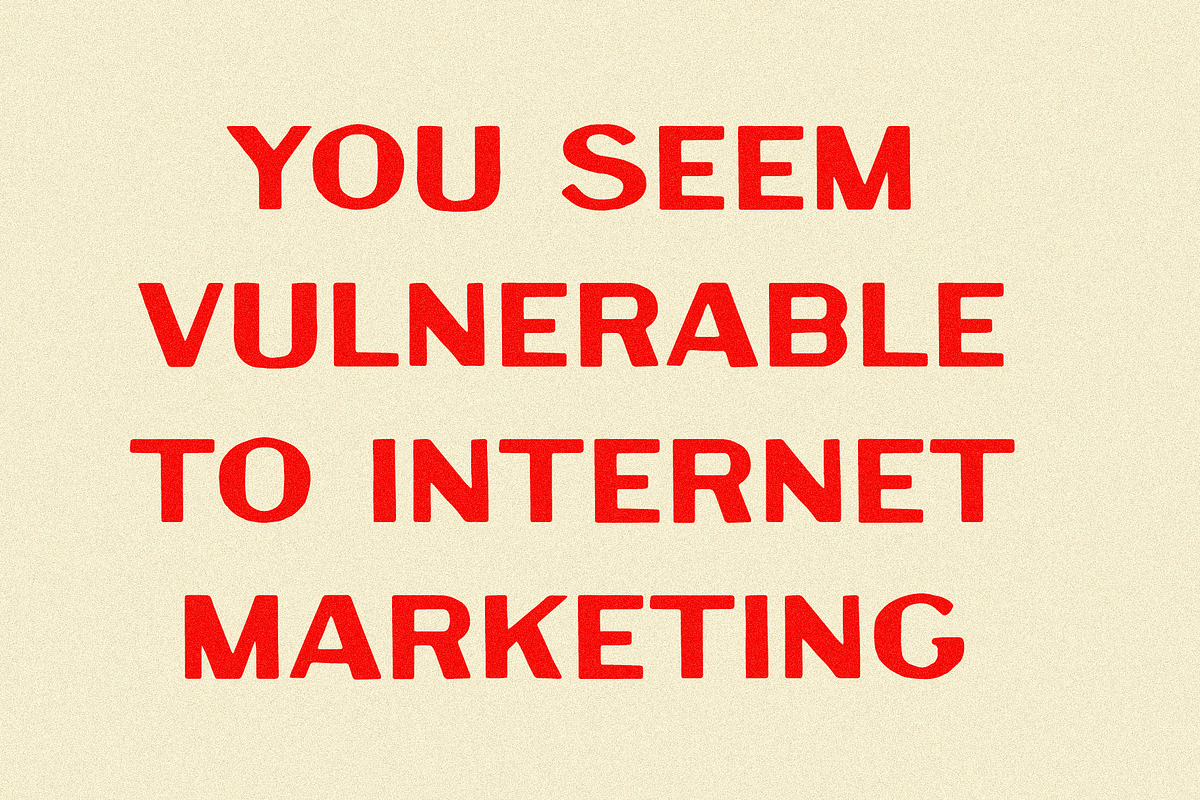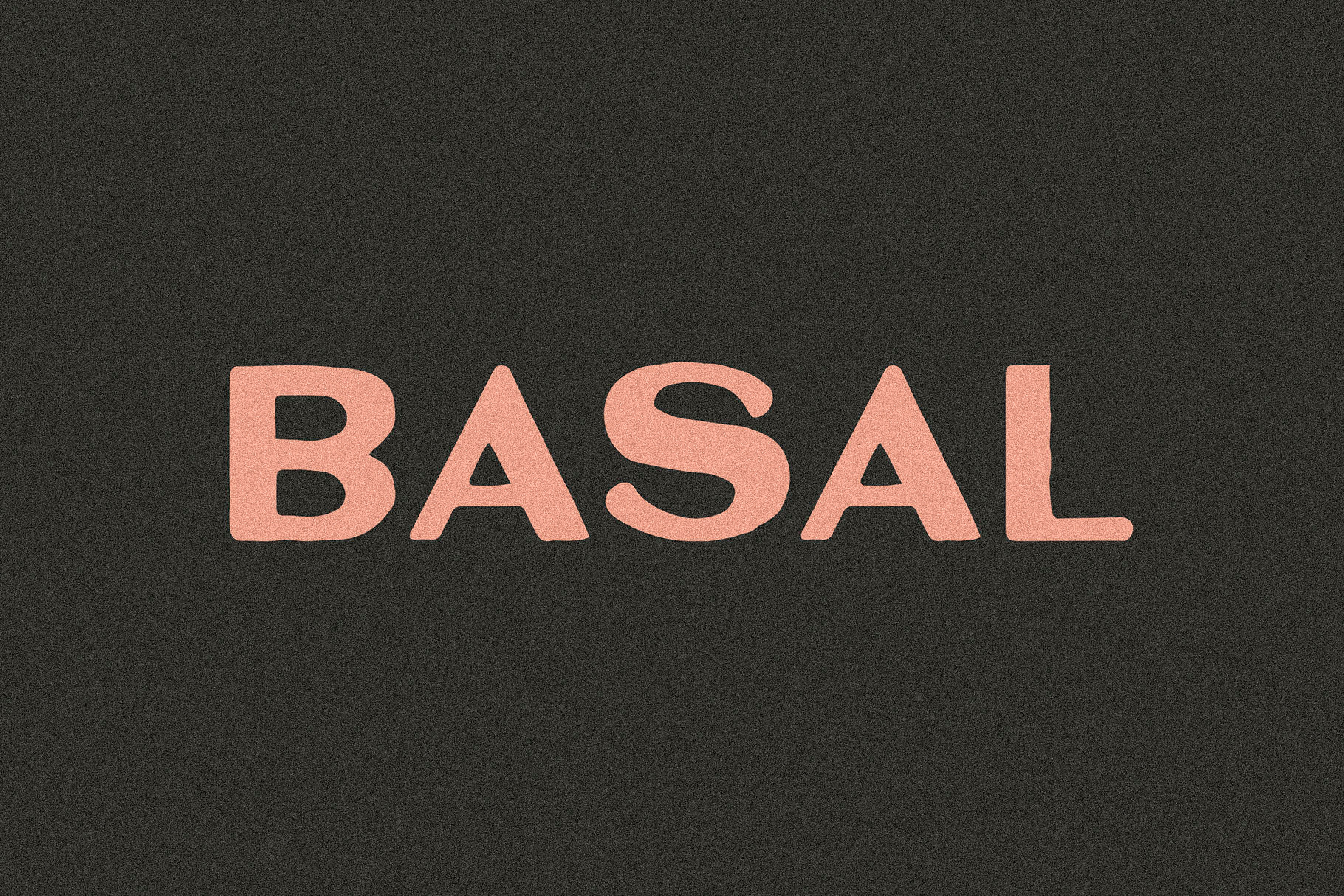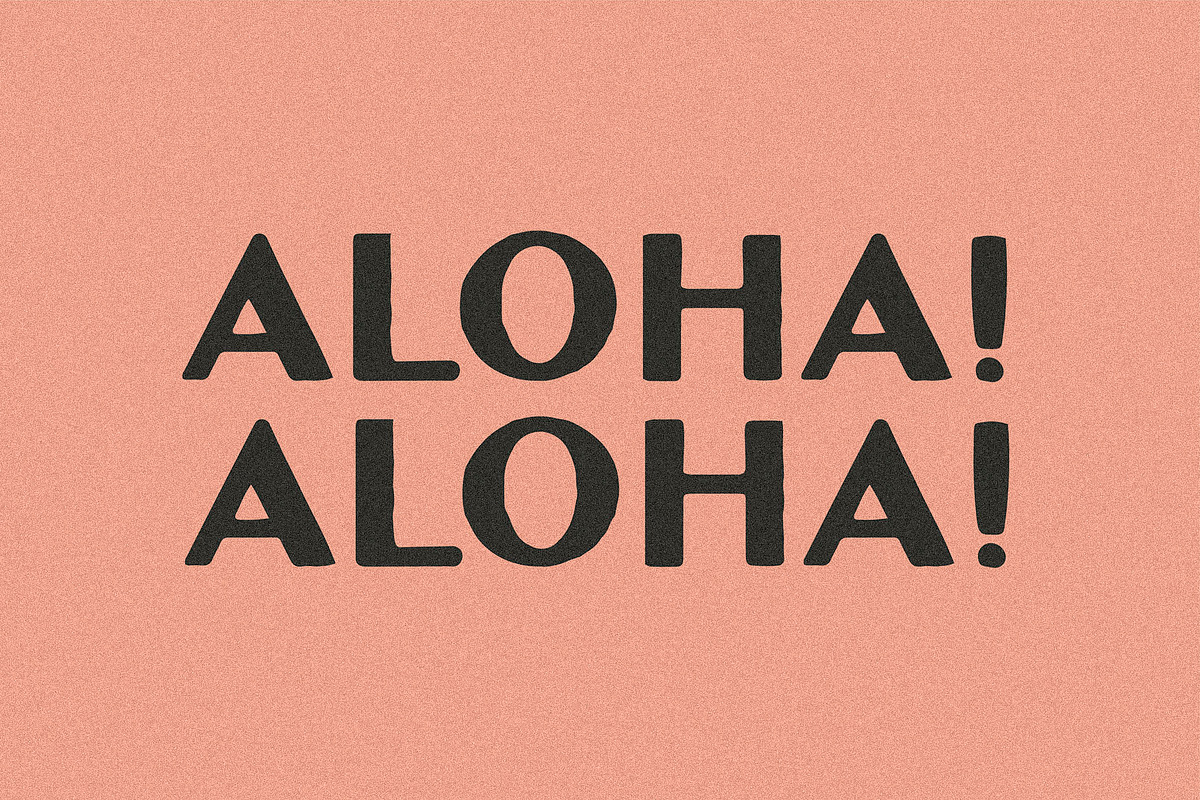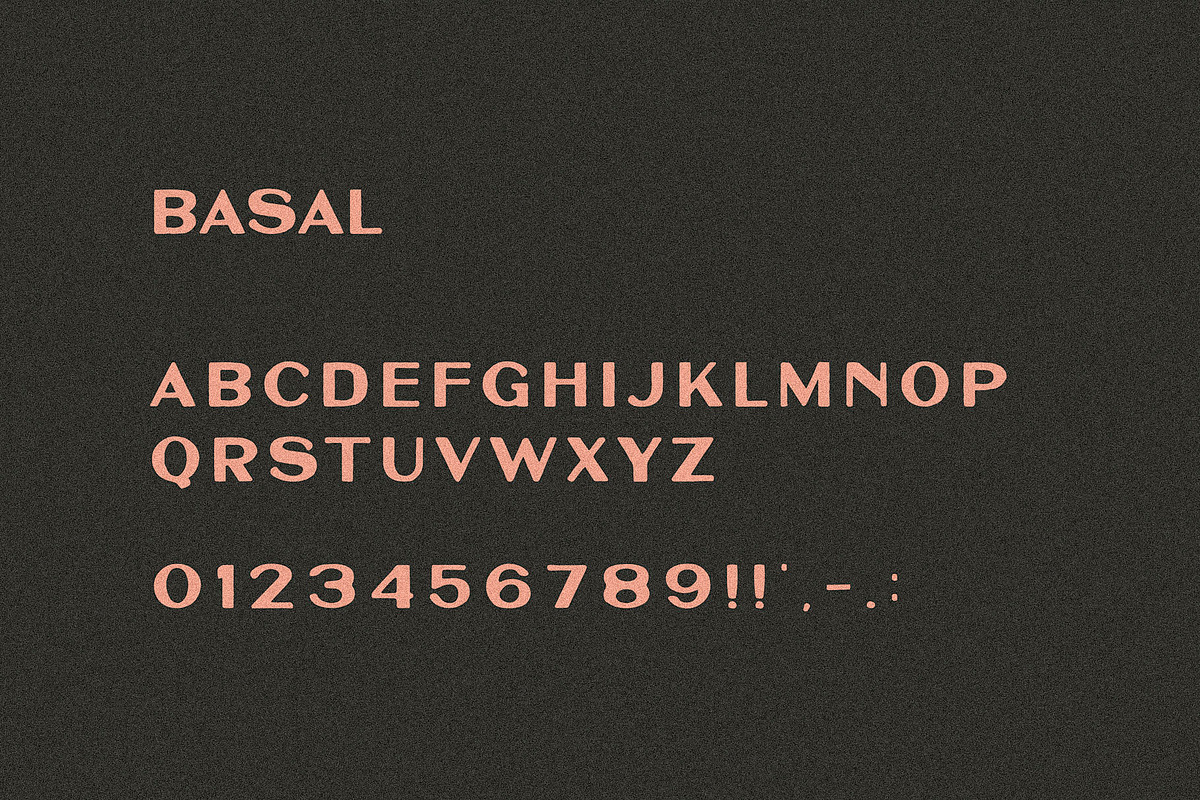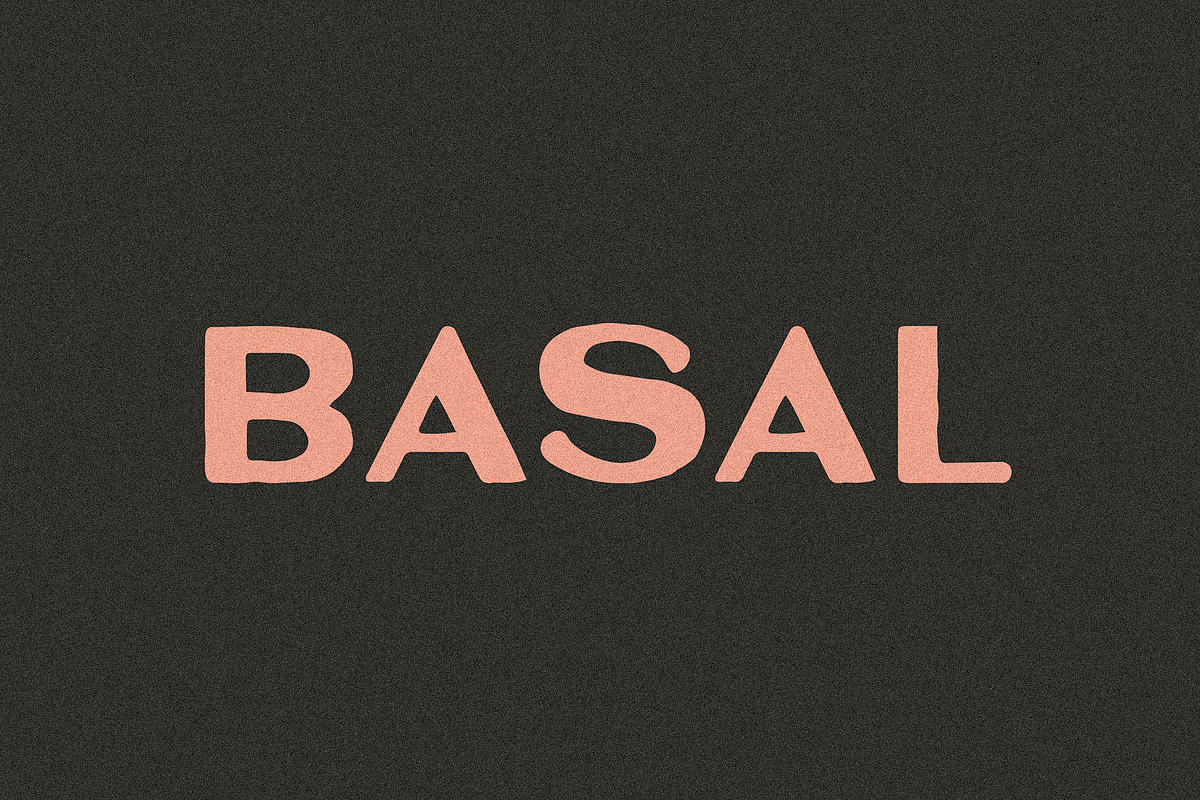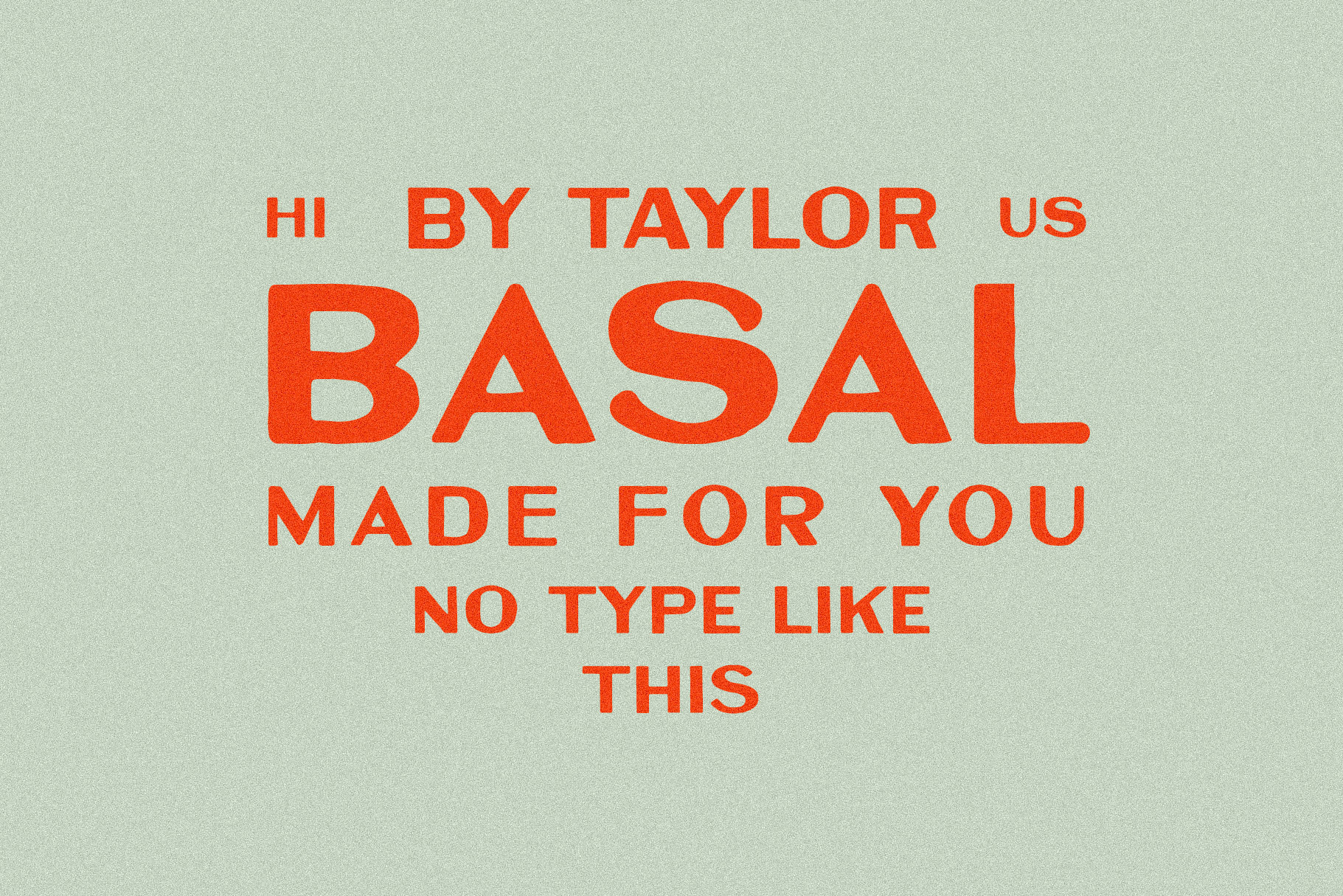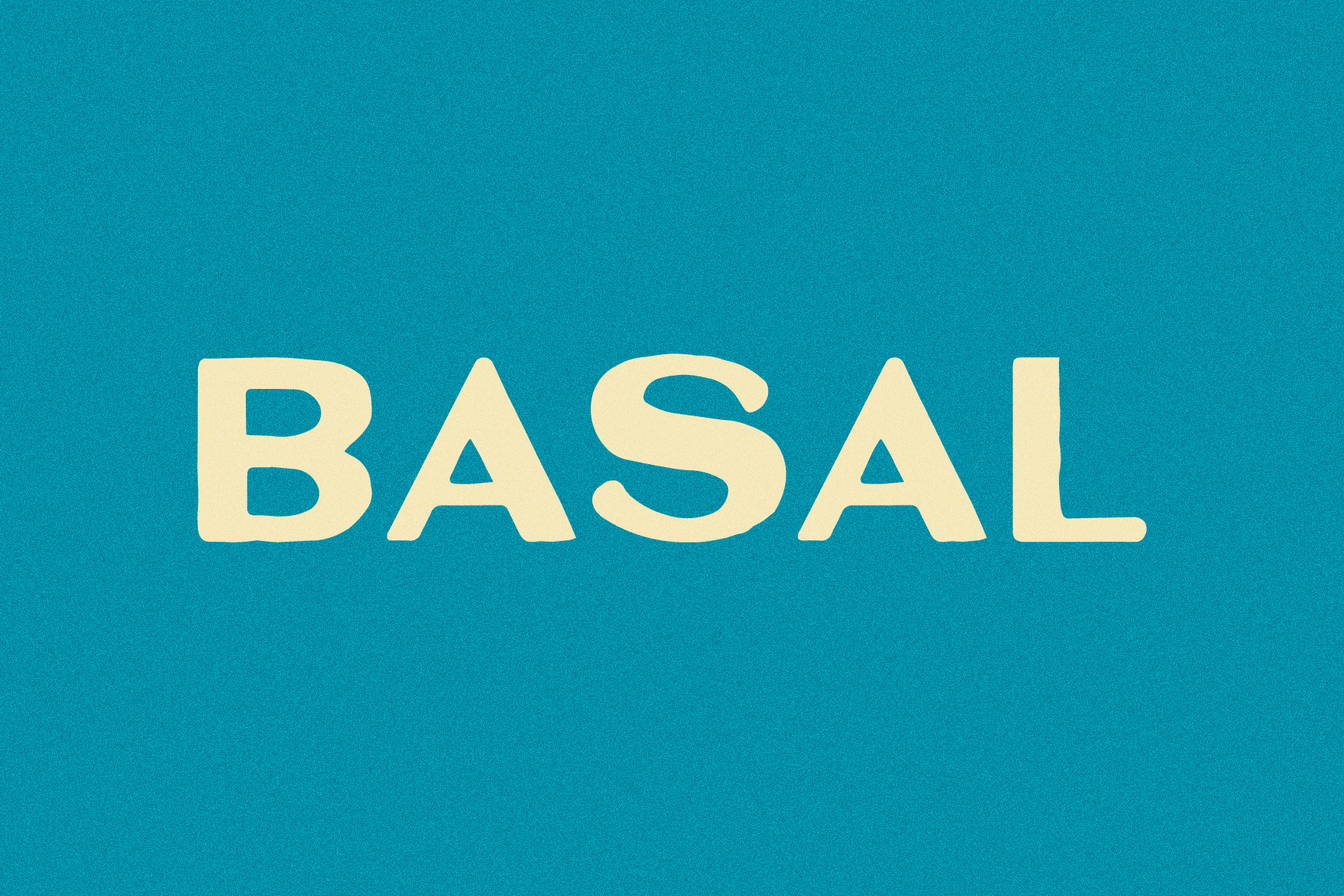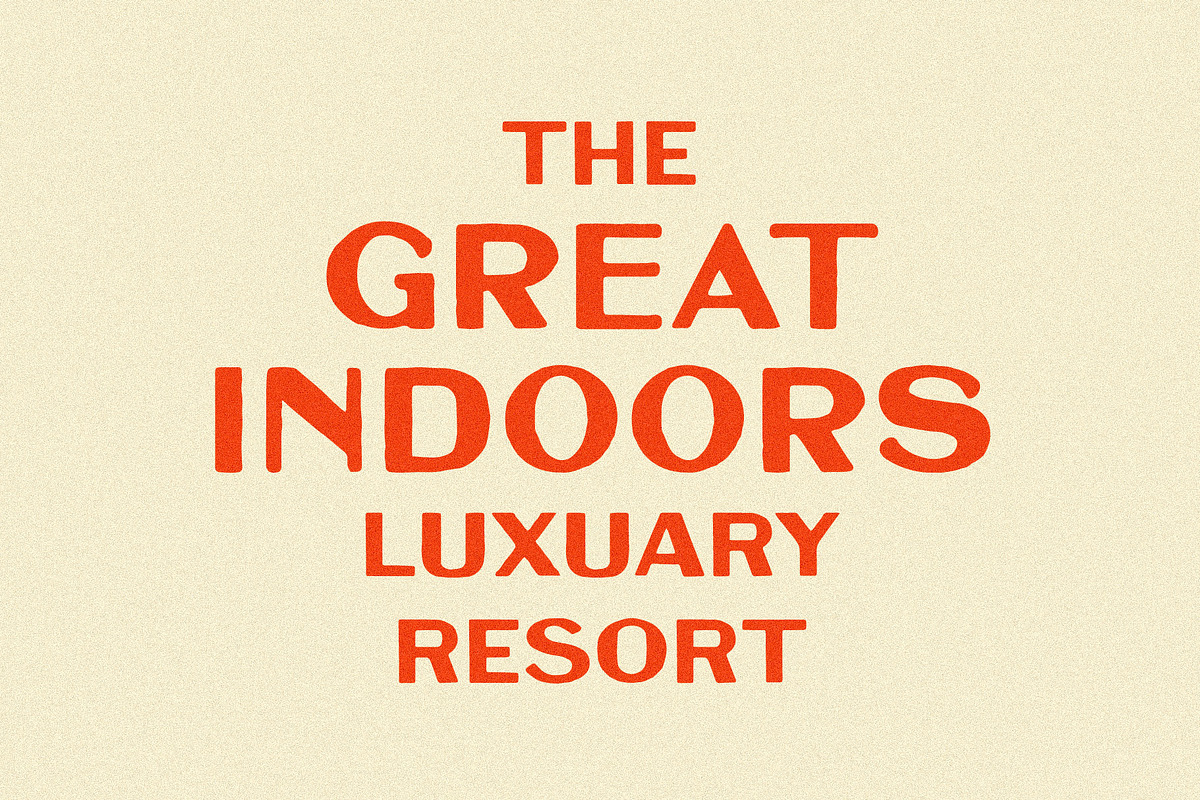
Basal I A Bold Sans Serif Font
Basal is spanish for “base layer” or “fundamental” - which feels about right.
This typeface was pulled from an old bottle circa 1910 and updated just enough to survive modern use. It’s sturdy, stripped back, and works best when you’re building something from the ground up.
Basic Latin support with a limited set of accented characters.